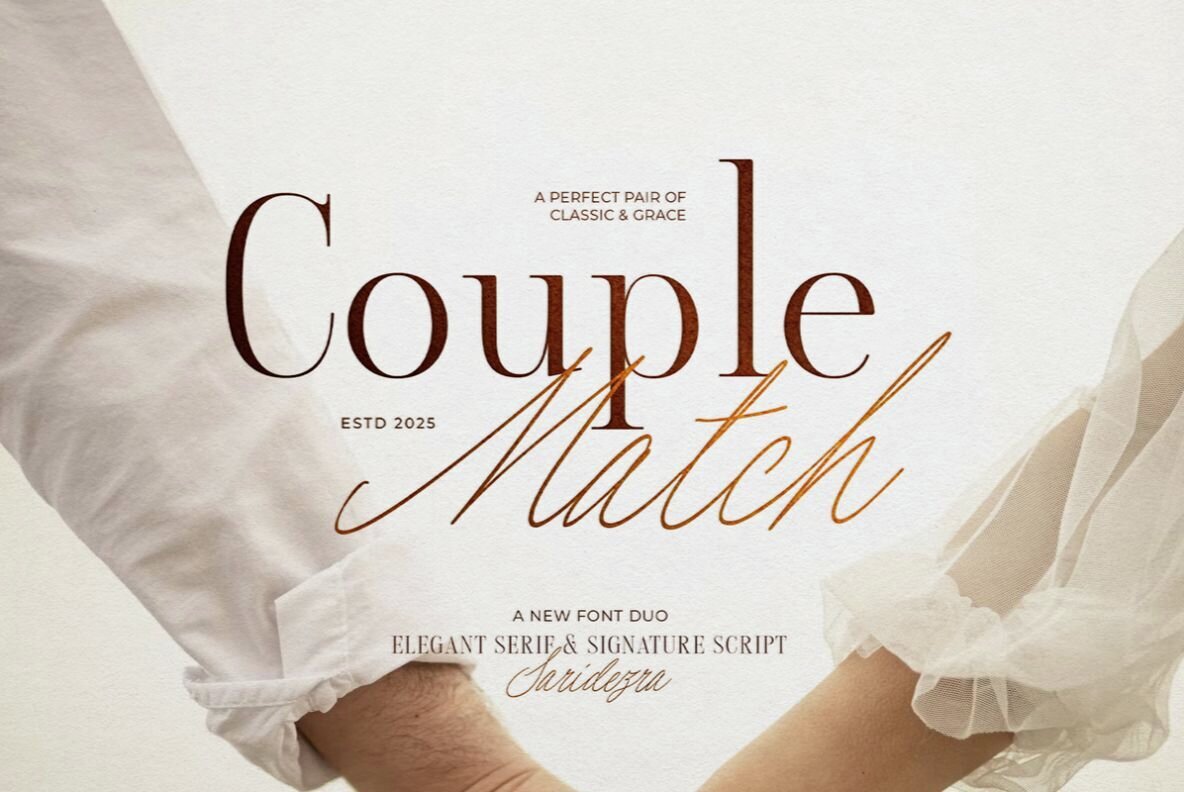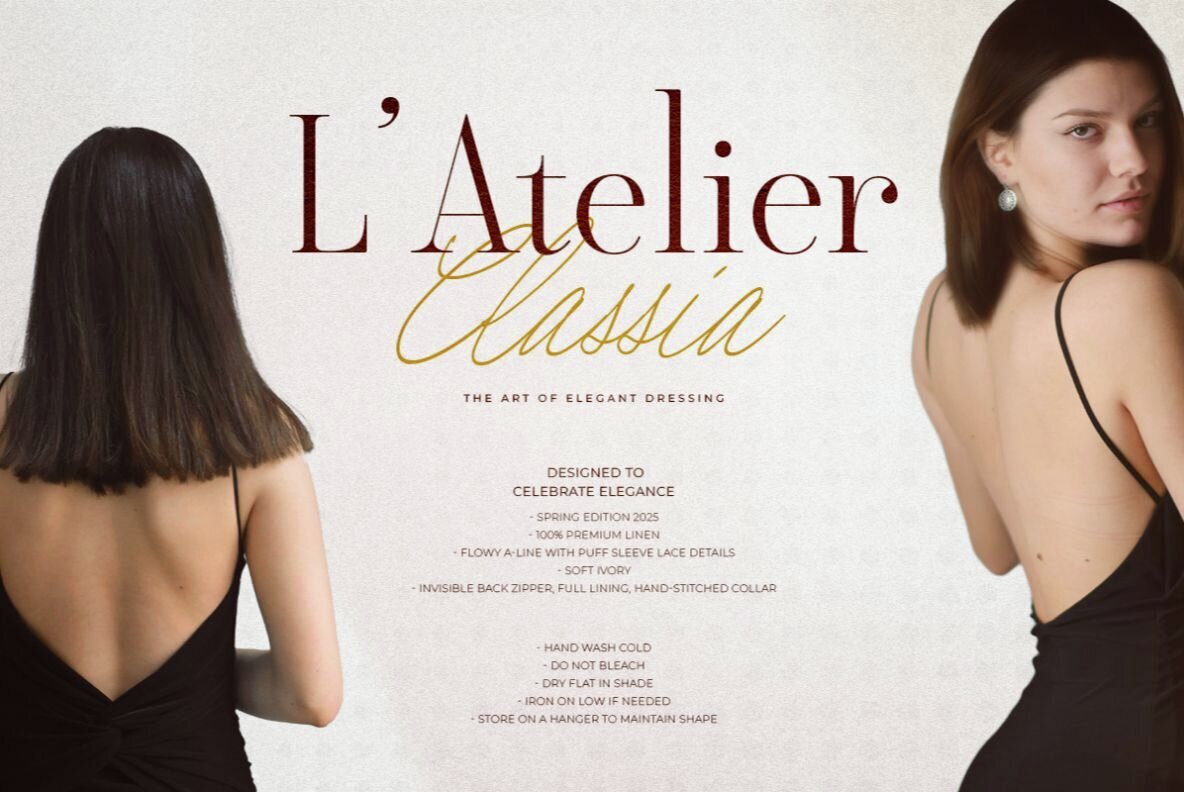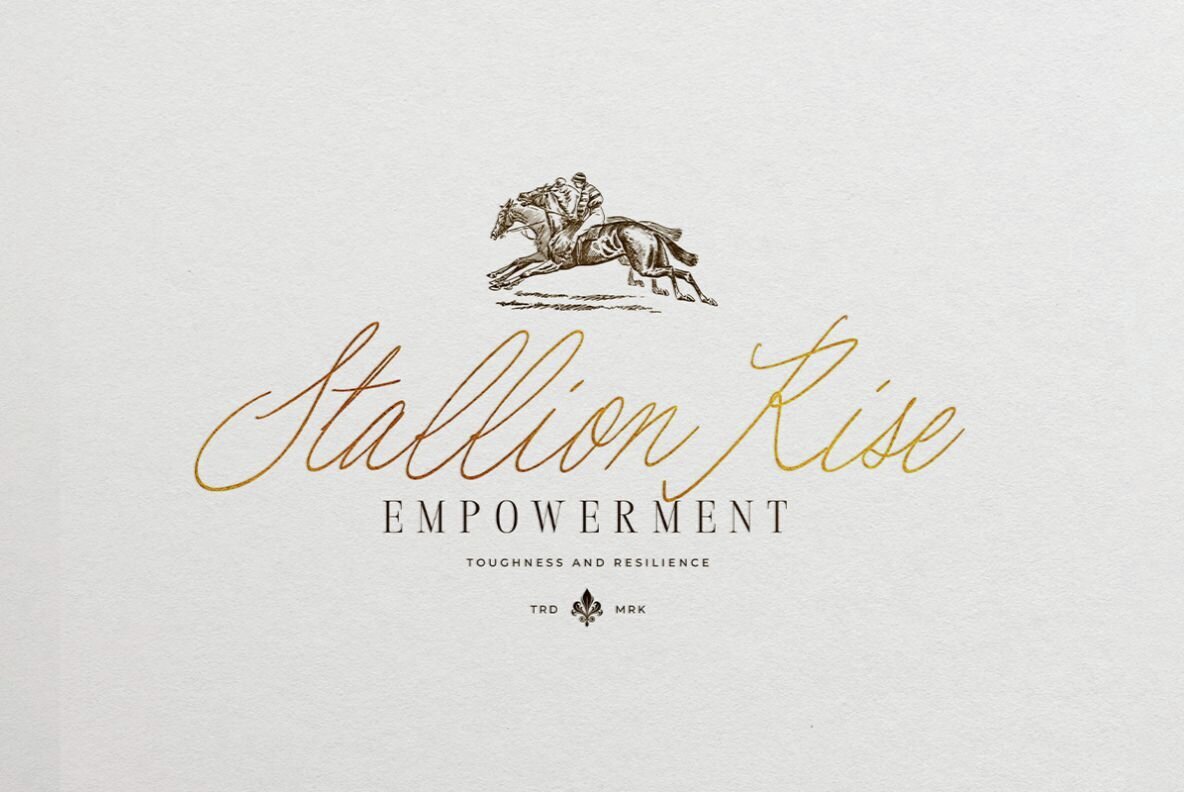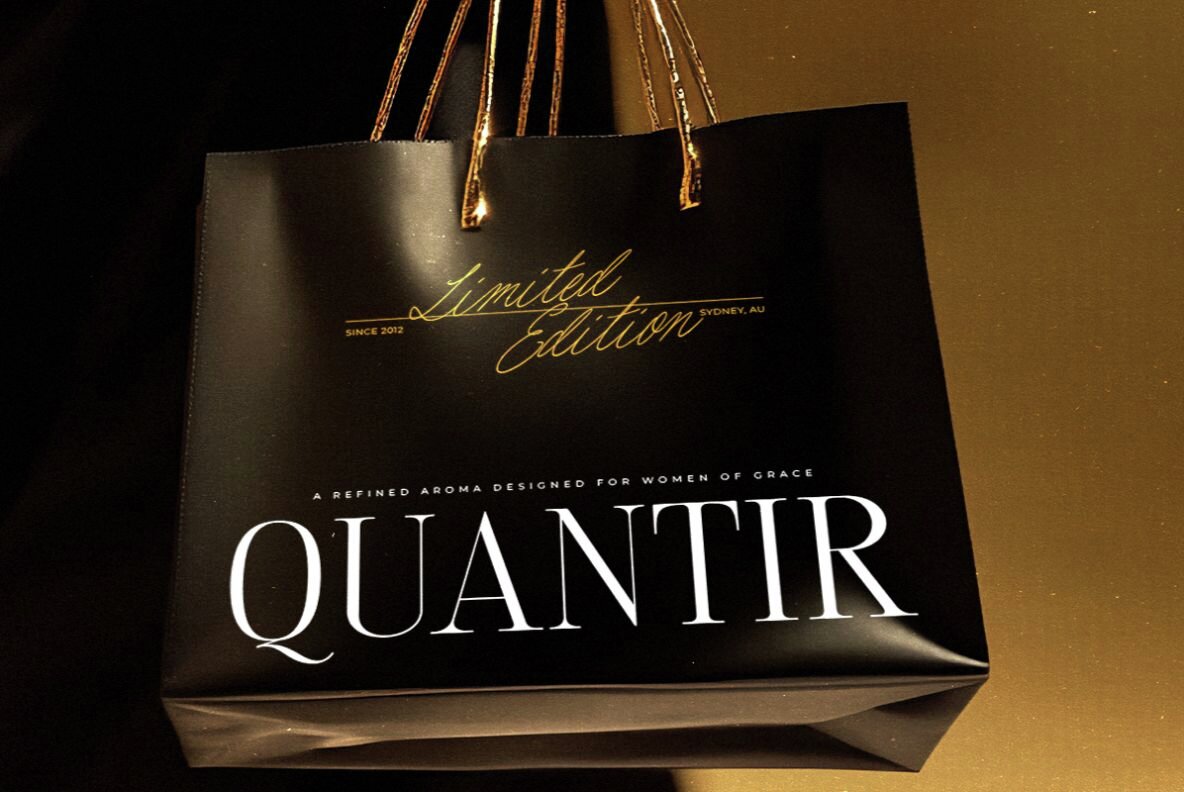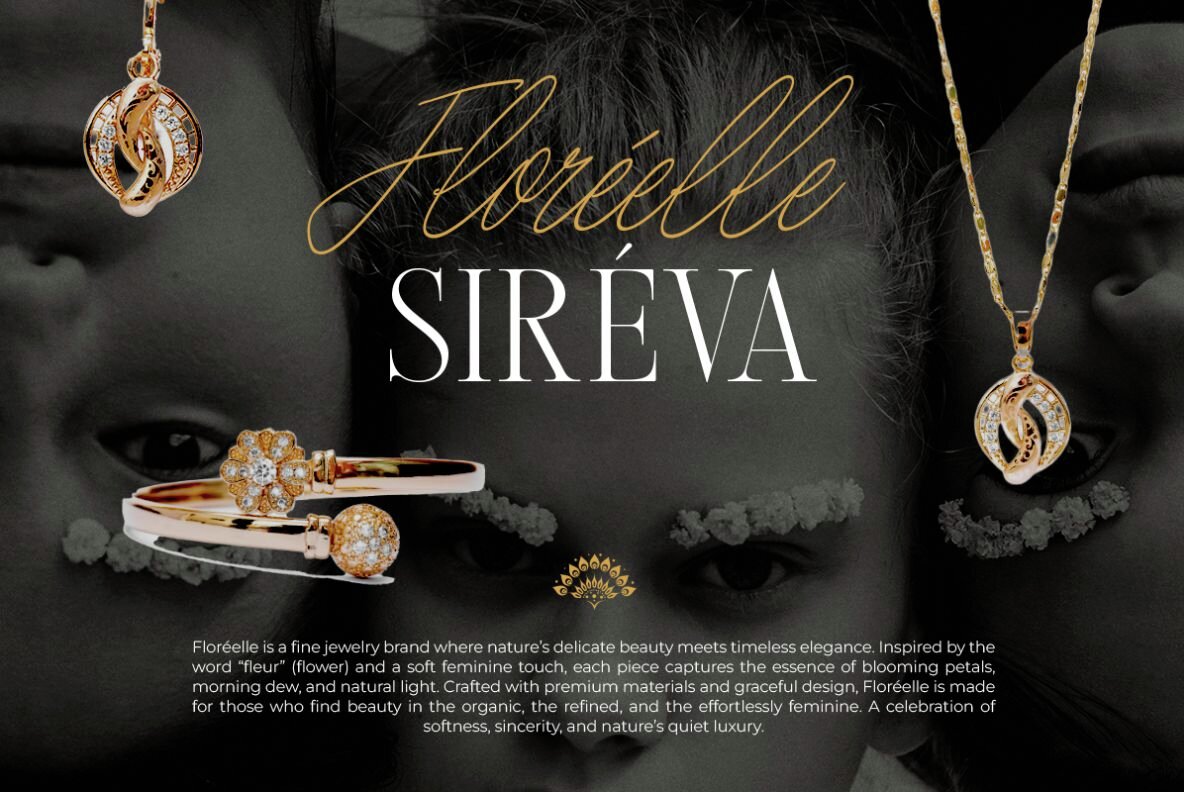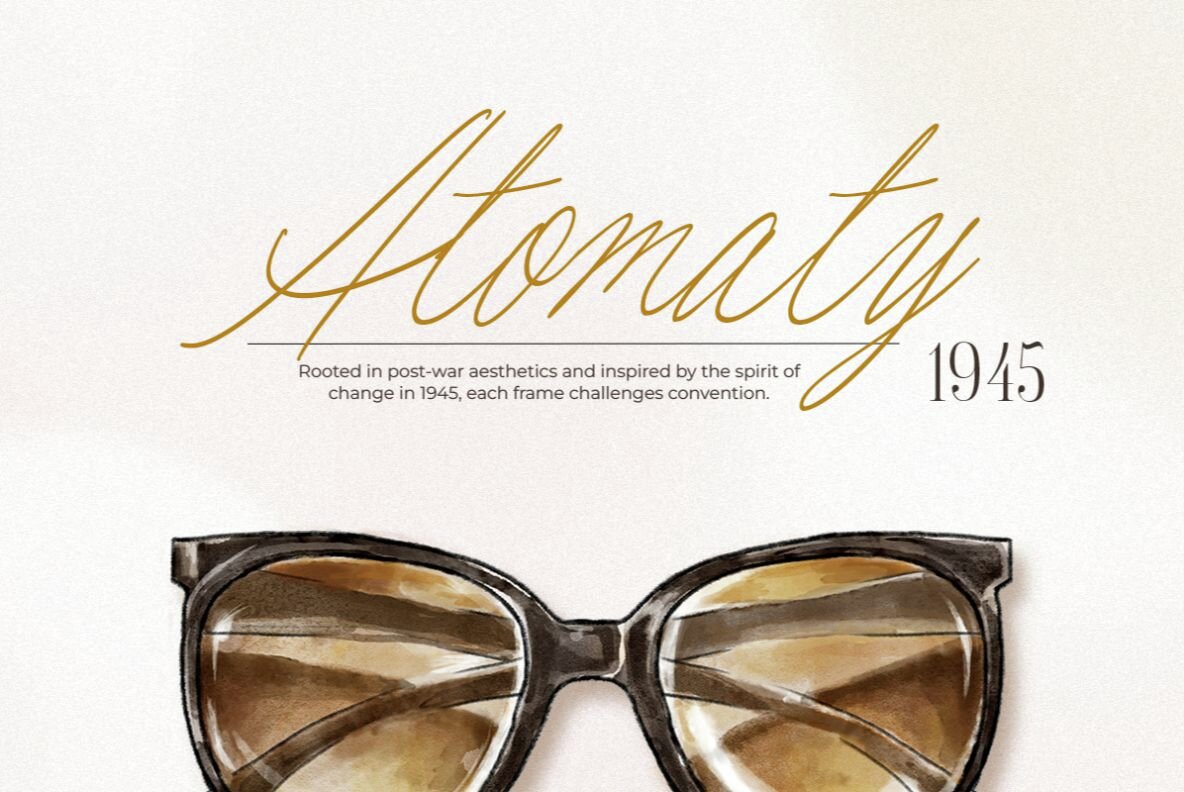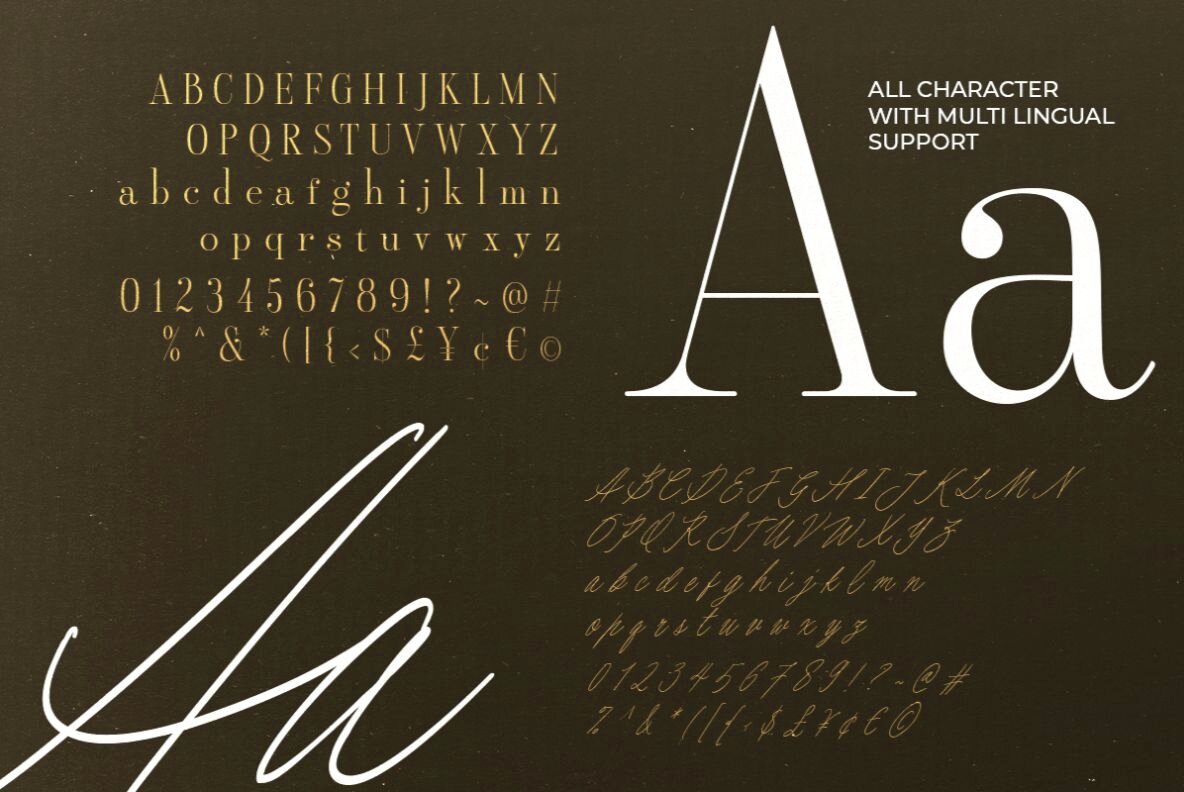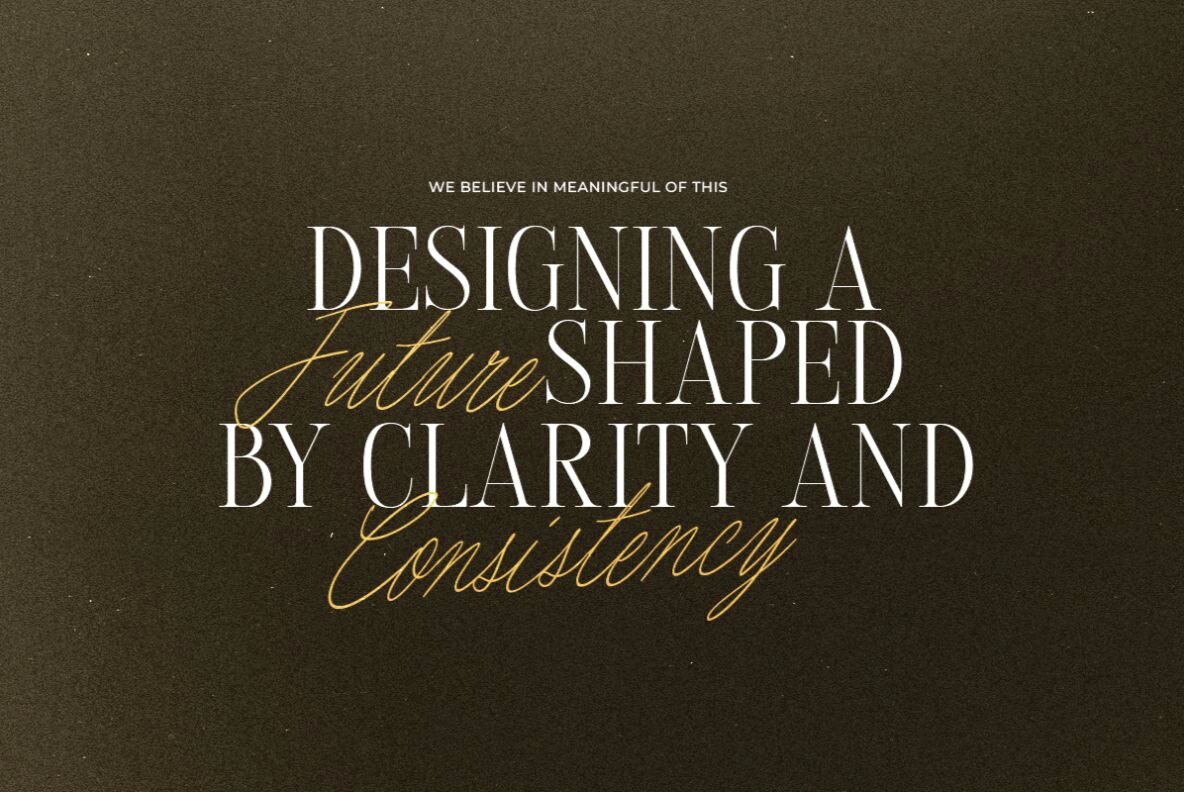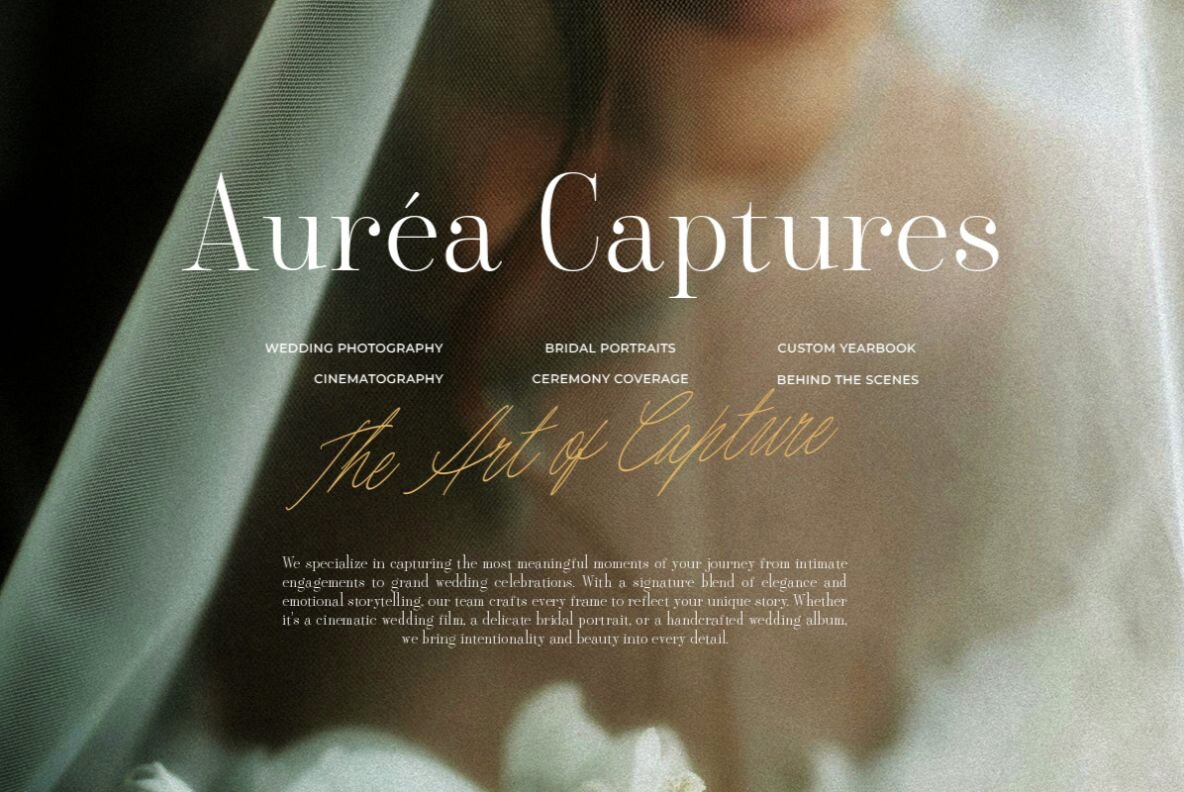
Couple Match Font
Couple Match Script
Couple Match Serif
Experience the harmonious blend of elegance and sophistication with Couple Match, a luxury font duo that combines a modern serif with a signature handwritten script. This combination offers a unique balance of contemporary style and classic charm, perfect for projects that demand a touch of luxury and modernity. Couple Match shines in numerous applications, from wedding invitations to high-end branding. Its versatility extends across various design needs, making it a valuable addition to your typography arsenal.Couple Match: The Perfect Font Pairing